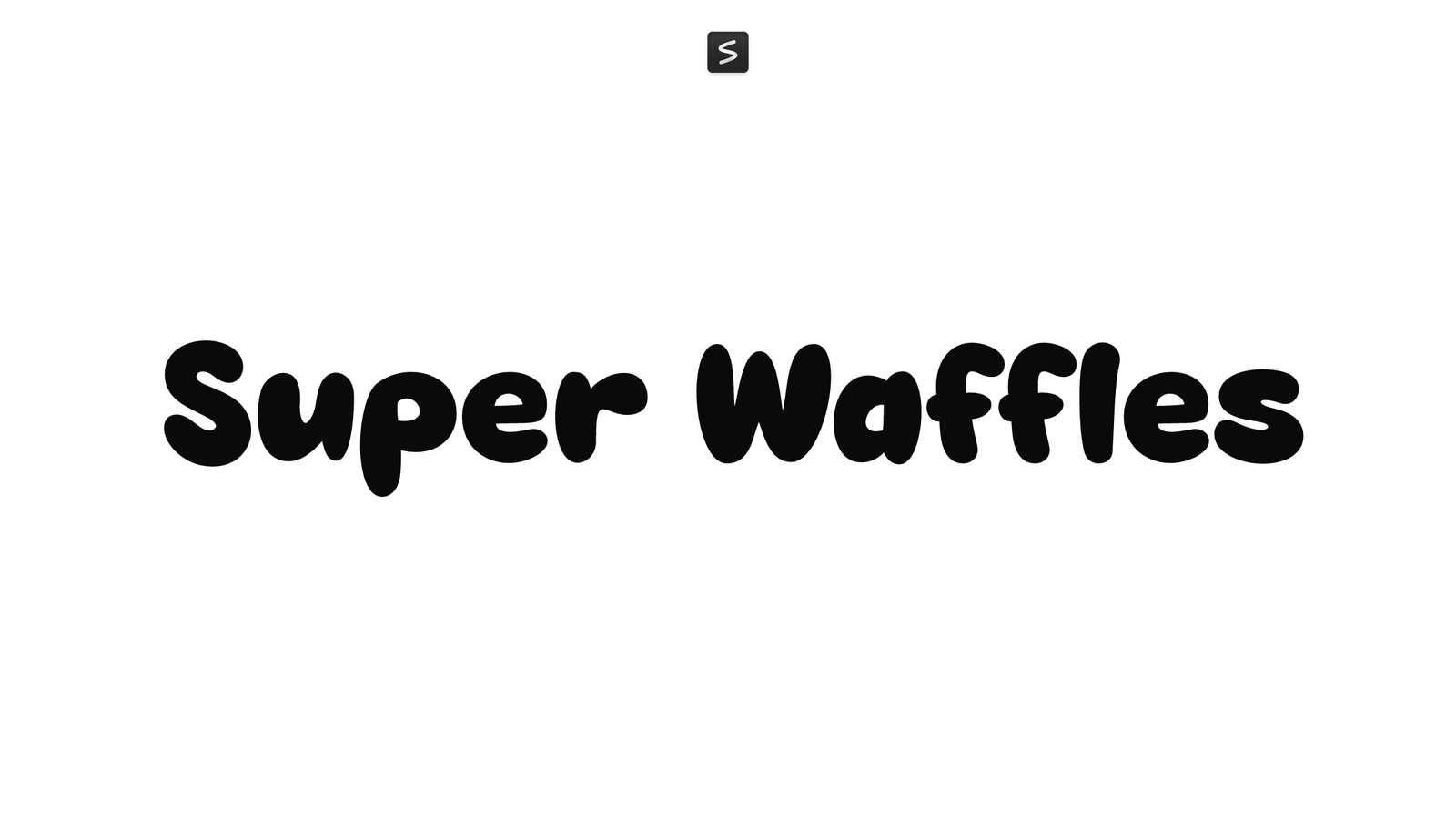
Super Waffles is a bold, rounded handwriting font created by fsuarez913. Its loose letterforms and generous spacing give it an approachable, informal character that draws from comic lettering and children’s book illustration. The rounded edges and bouncy rhythm feel casual and welcoming, without sacrificing legibility.
The font works well for posters, greeting cards, social media graphics, book covers for young readers, and any project that needs a friendly, lighthearted touch. It’s also a solid choice for branding that aims to feel approachable rather than formal. Super Waffles brings a sense of playfulness to layouts without requiring much design effort, the typeface does a lot of the work itself.